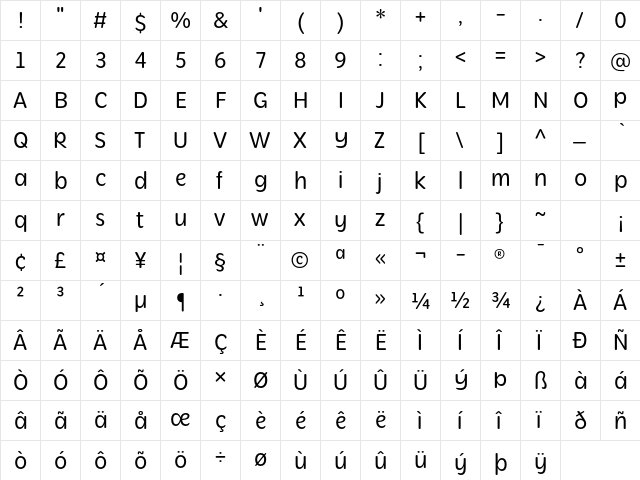
Mithella Regular
| Foundry | Anugrah Pasau |
| Designer | Anugrah Pasau |
Design Context for Mithella Typeface
Mithella is a composed and adaptable typeface that performs quietly and consistently across a wide range of design contexts.